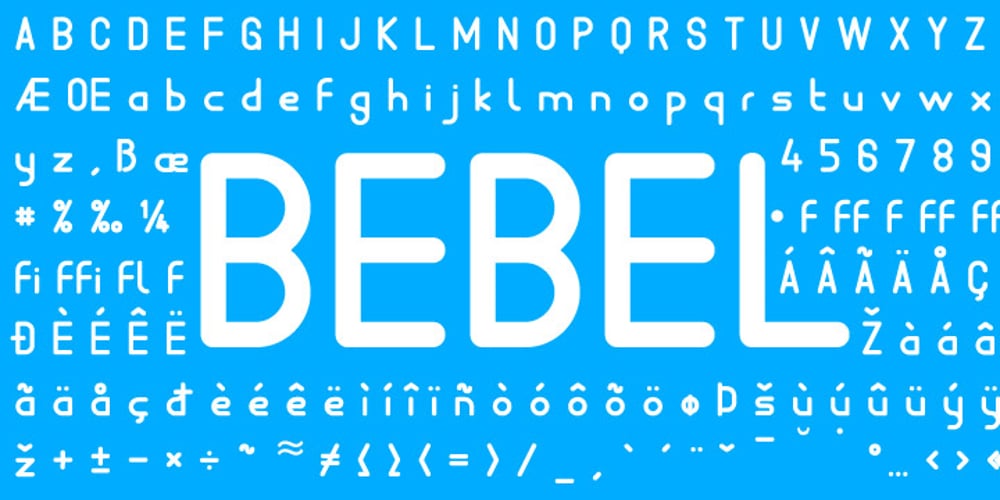
FM Bebel Font Family was designed by Elwin Berlips and published by FontMeister. FM Bebel contains 1 styles and family package options. Bebel is a straight forward font. A modern geometric typeface influenced by architectural reproduction drawings such as blueprints and dyelines. It’s medium weight makes it very legible, even in small sizes. You can use this font to create posters, greeting cards, scrapbooks, CD labels, T-shirts, coffee mugs, digital videos websites and banners.